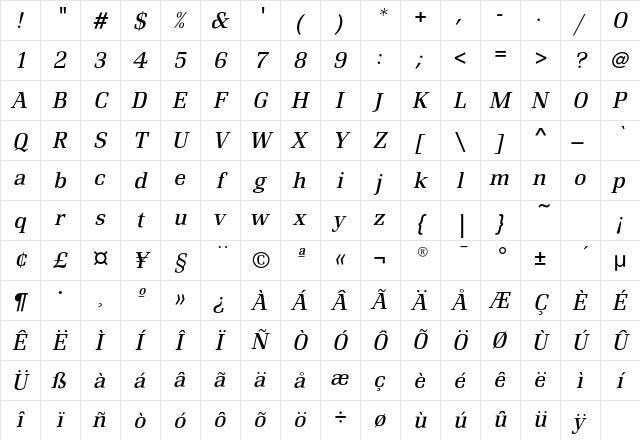
RenaultEF LightItalic Free Font
RenaultEF LightItalic
Style: LightItalic
RenaultEF Family
RenaultEF LightItalic
Design Context for RenaultEF
RenaultEF is a composed and adaptable typeface that performs quietly and consistently across a wide range of design contexts. The slanted form adds forward momentum and visual energy. Its slender proportions lend an understated elegance to any composition.
Pro Tip: Use RenaultEF for emphasis, pull quotes, and subheadings where its slanted energy can add rhythm to the layout.